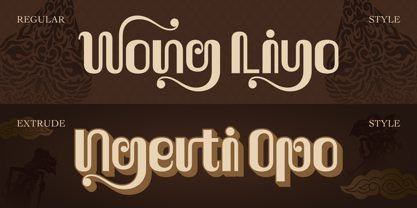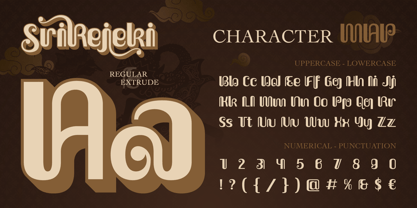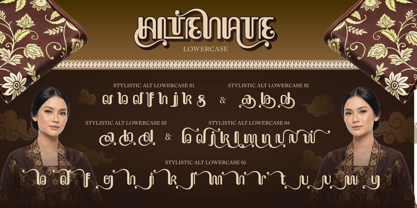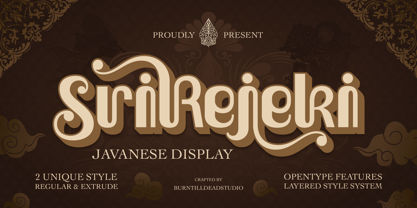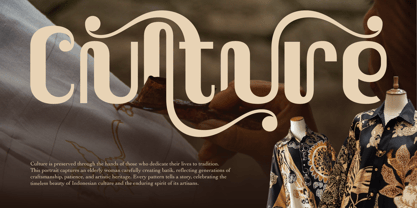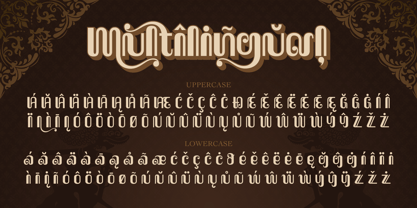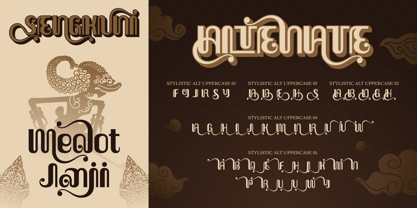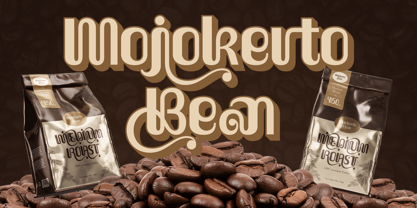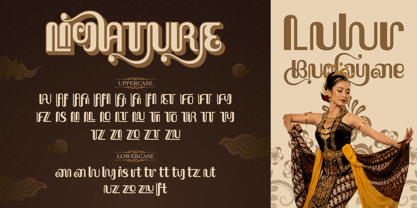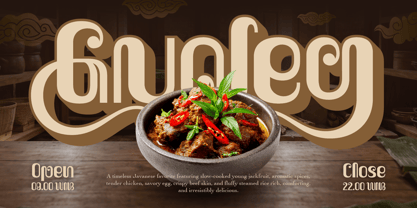
Sri Rejeki
Sri Rejeki is a bold Javanese inspired display font featuring elegant curves, decorative swashes, and an ornamental style reminiscent of traditional Javanese calligraphy. Perfect for brands, packaging, and designs that want to bring a touch of Indonesian cultural heritage with a modern twist.
This font comes in 2 unique styles: Regular & Extrude, giving you flexibility to create eye-catching logos, signage, and layered typography effects.
Whether you're designing a menu board for a Javanese restaurant, packaging for local coffee beans, or a heritage-inspired brand identity, Sri Rejeki brings authenticity and character to every project.
Perfect for: Logo & branding design, Restaurant, warung, and coffee shop signage, Food packaging & product labels, Cultural & traditional-themed projects, Wedding invitations with an ethnic touch, Social media graphics & posters
Features: A – Z set (Uppercase & Lowercase), Number, Punctuation, Alternates, Ligatures, Multilingual